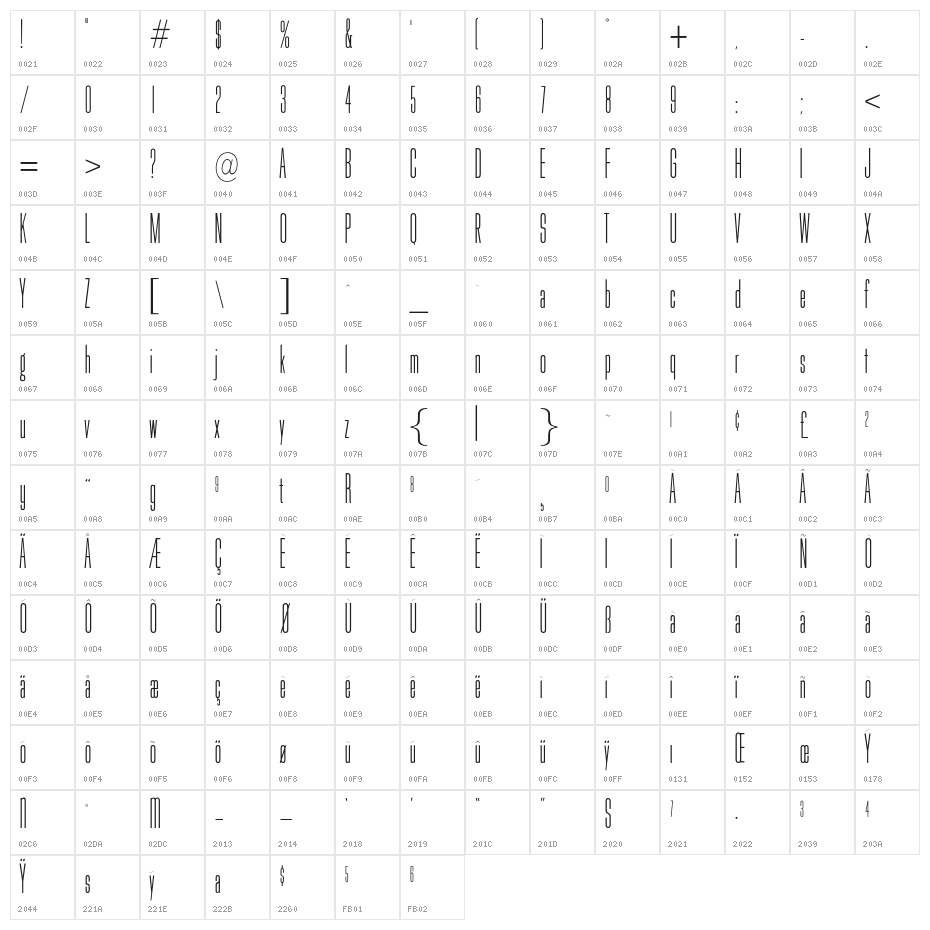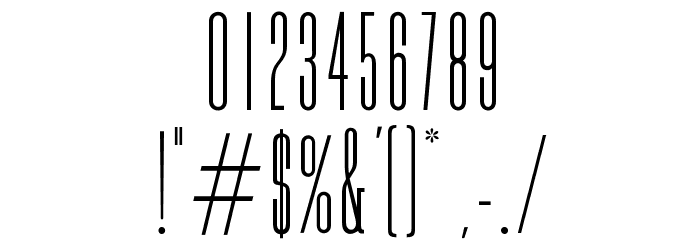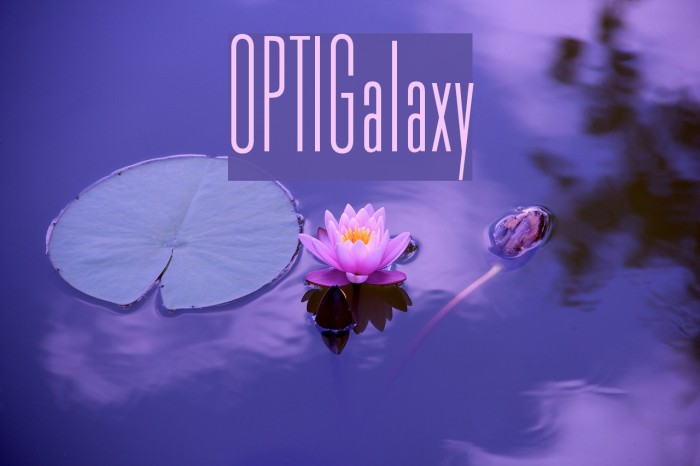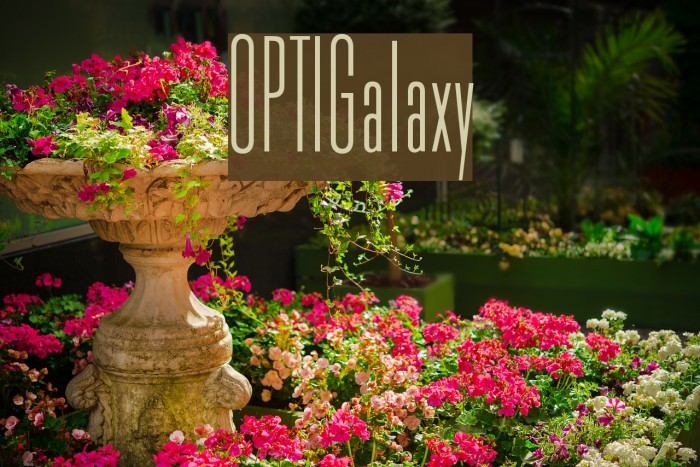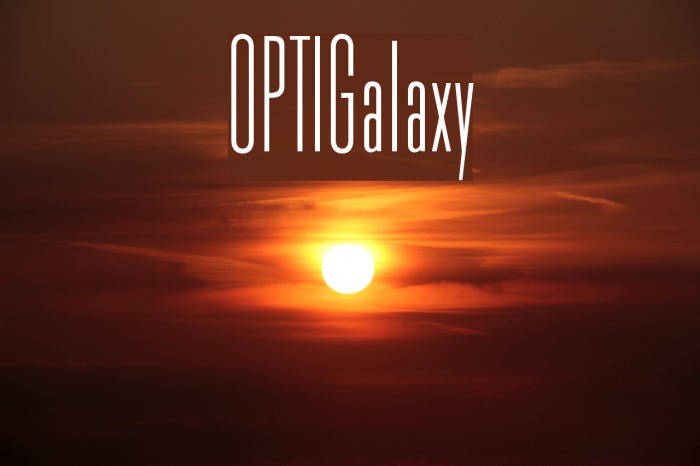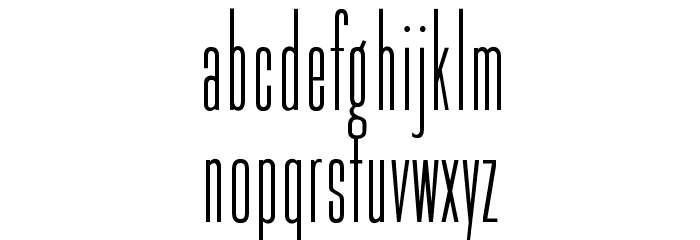
OPTIGalaxy Font
This font features a tall, narrow design with a distinctly modern and elegant appearance. The uppercase letters are elongated and sleek, giving a sophisticated and stylish feel. The lowercase letters maintain the same narrow structure, ensuring consistency across the typeface. Numbers and special characters follow the same design principles, providing a cohesive look. The overall impression is one of refinement and contemporary style, making it suitable for a variety of design applications where a modern and clean aesthetic is desired.
| Proposed Projects | Ideal for fashion magazines, luxury branding, modern posters, and elegant invitations. |